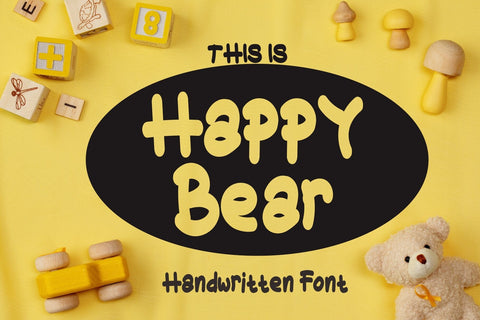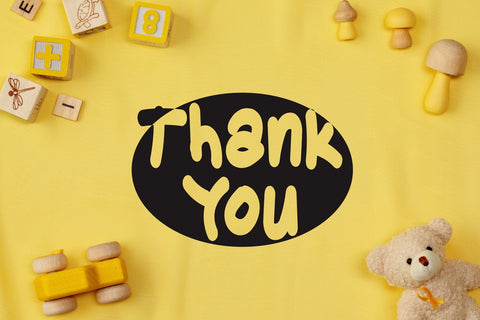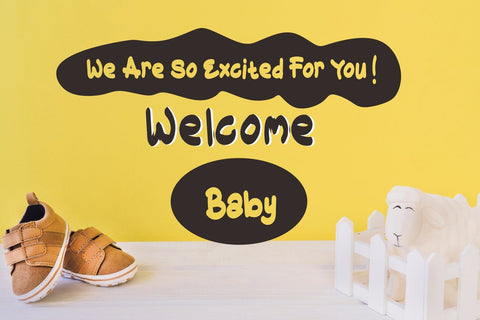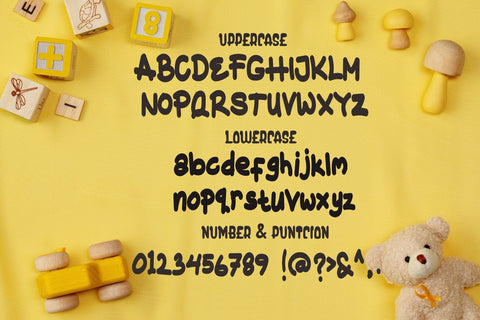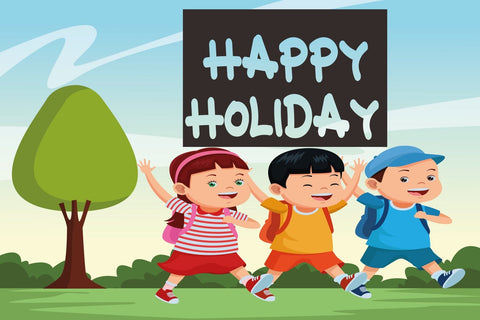
Happy Bear - Thick Handwritten Font
Happy Bear is an adorable and lovable handwritten font that embodies the essence of cuteness and playfulness. Its rounded and chubby letterforms resemble the handwriting of a cheerful bear, adding a delightful touch to any design. This font captures the essence of innocence and joy, making it perfect for projects targeting children, baby-related themes, or anything that needs a touch of whimsy. Whether it's creating invitations, nursery decor, or playful branding, Happy Bear brings a sense of charm and warmth to your designs. Its cute handwritten style is sure to bring a smile to anyone's face.